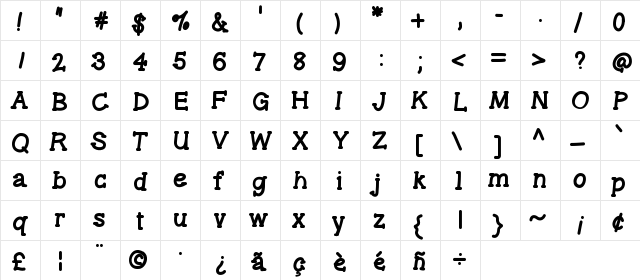
GelPenSerifHeavy Heavy
Design Context for GelPenSerifHeavy Typeface
GelPenSerifHeavy brings classic typographic sensibility to the table — its serifs and measured letterforms reflect centuries of print heritage.
Pro Tip: Set GelPenSerifHeavy with slightly loose tracking in headlines to let each letterform's detail read clearly at display sizes.